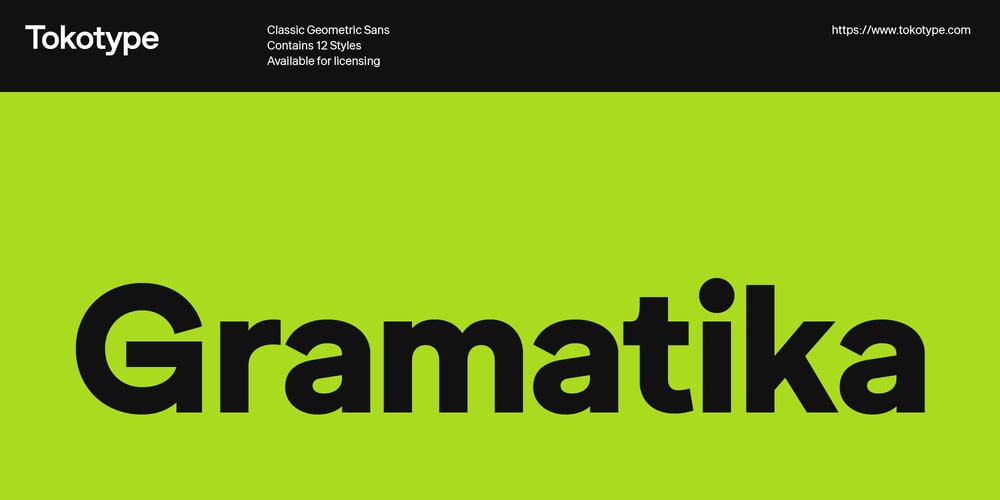
Gramatika Font Family was designed by Gumpita Rahayu and published by Tokotype. Gramatika contains 12 styles and family package options. Gramatika is a typeface family of sans serif from the neo-Grotesque styles. There are four different weights available, ranging from light to bold. Each weight is equipped with an italic style that is a bit like an oblique style and lifted by some unique characters, with an alternative to the single story ‘a’ for example. Inspired by the famous grotesk typefaces such as Akzidenz Grotesk and Bauersche Giesserei’s Venus Grotesk, Gramatika shapes and styles are consistently adjusted for each character to meet the classic contemporary style, treated with some ciruclar-based characters in descender g, y. By balancing balance and flexibility, Gramatika was established to create alternative communication for current trends. The latest version of this fonts comes with Latin plus script coverage, and supported by the basic characters of Cyrillic and Greek.